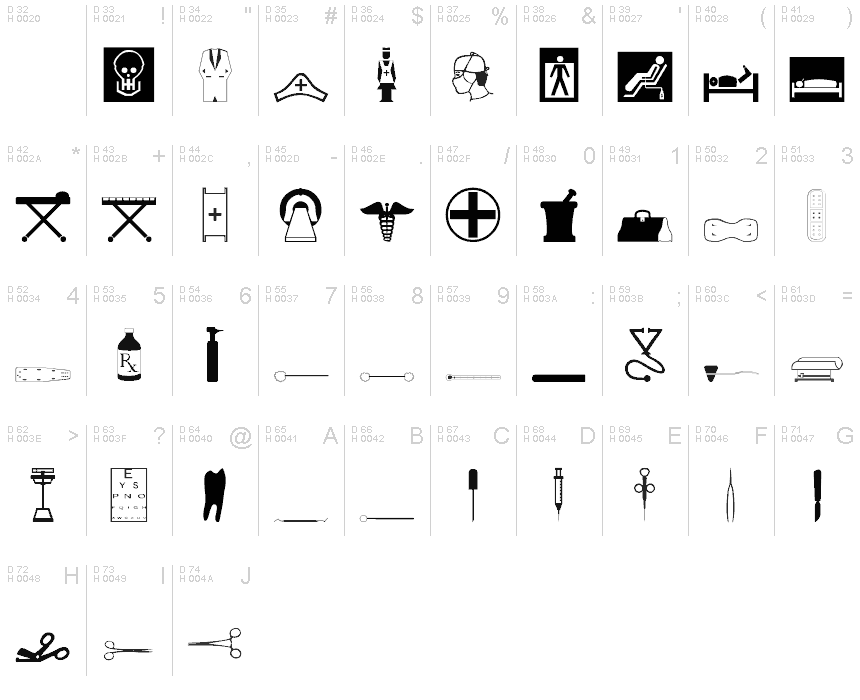
Medicine
Medicine is a captivating dingbat font that exudes a distinct medical and pharmaceutical aesthetic. Its minimalist icons, clean lines, and geometric shapes evoke a sense of professionalism and clinical precision.
This font would excel in healthcare-related branding, packaging, or informational materials, where its visual cues instantly communicate a sense of authority and trustworthiness. The varied symbols, ranging from pill capsules to stethoscopes, provide a versatile toolkit for designers seeking to craft visually engaging and functionally relevant compositions.
Medicine's streamlined, utilitarian style lends itself well to a wide range of applications, from medical publications to healthcare product labeling, making it a valuable addition to any designer's font collection.
This font would excel in healthcare-related branding, packaging, or informational materials, where its visual cues instantly communicate a sense of authority and trustworthiness. The varied symbols, ranging from pill capsules to stethoscopes, provide a versatile toolkit for designers seeking to craft visually engaging and functionally relevant compositions.
Medicine's streamlined, utilitarian style lends itself well to a wide range of applications, from medical publications to healthcare product labeling, making it a valuable addition to any designer's font collection.